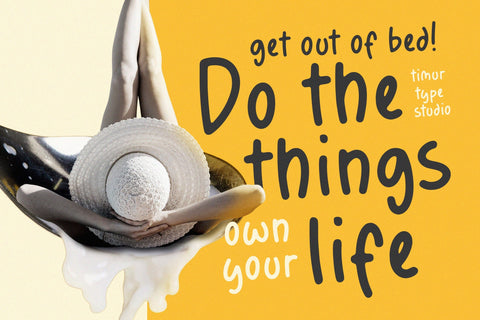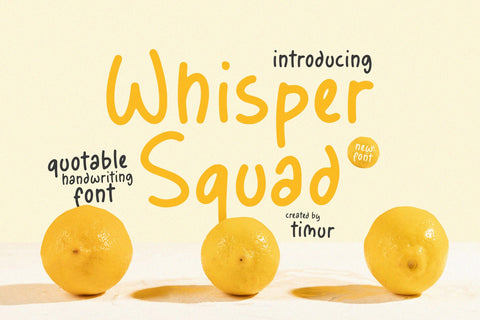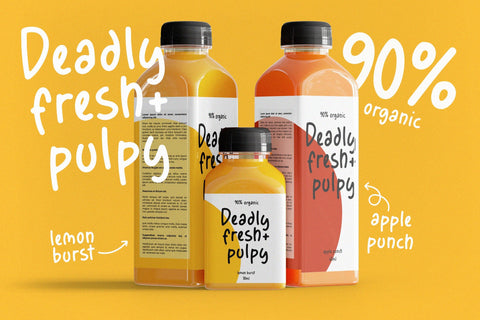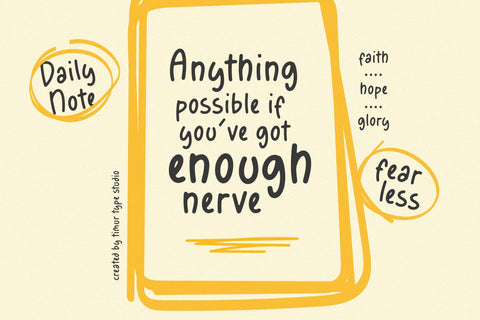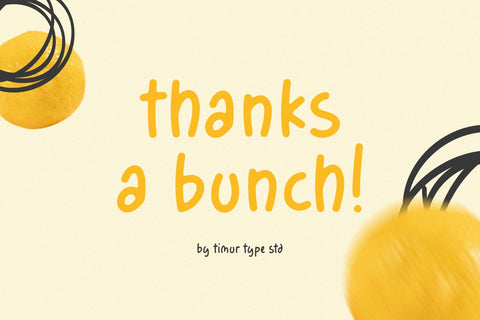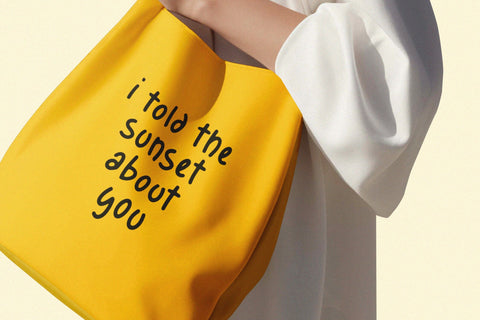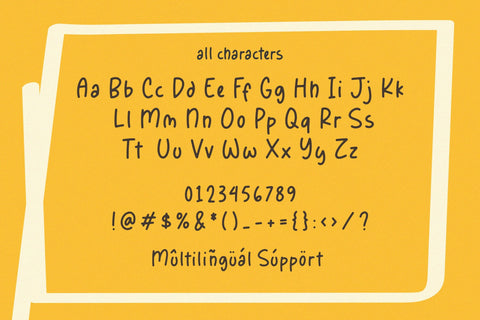
Whisper Squad - Quotable Handwriting Font
Whisper Squad is a Quotable Handwriting Font
This font is a whimsical and expressive choice for your design projects. With its playful and unique letterforms, this font adds a touch of charm to your text. The imperfect and wobbly strokes give the Whisper Squad font a handwritten and organic feel, creating a sense of authenticity and warmth. Its versatile style makes it perfect for showcasing quotes, inspirational messages, and any text that deserves attention. Whether you're aiming for a fun and lighthearted design or a nostalgic and artistic feel, the Whisper Squad font offers versatility and character. Capture the essence of handwritten notes with the Whisper Squad quotable handwriting font and infuse your designs with a playful and memorable touch.
Whisper Squad Font also supports multilingualism